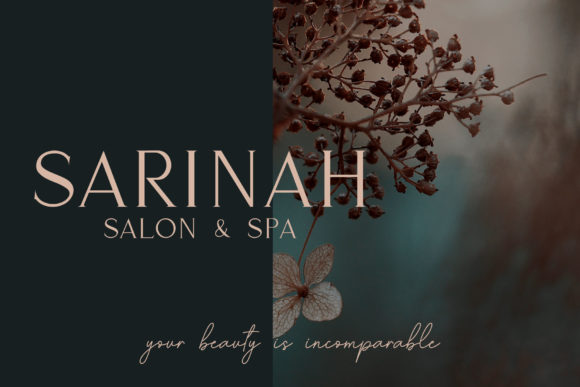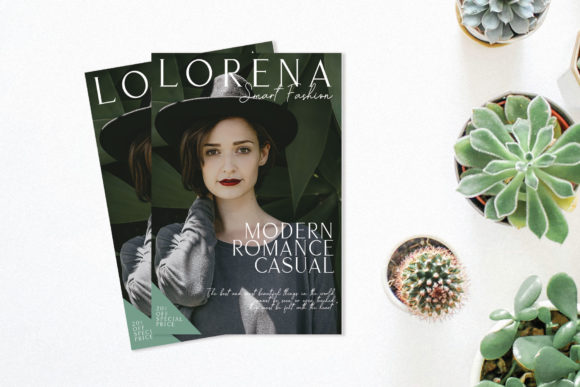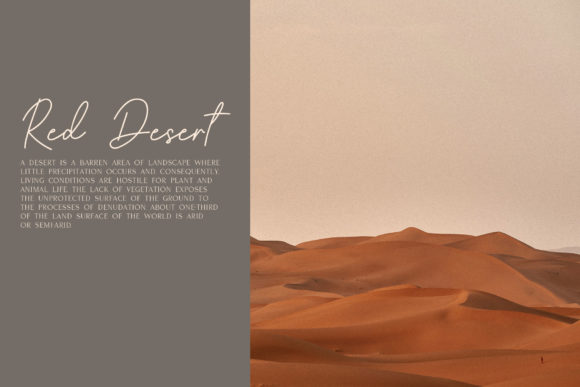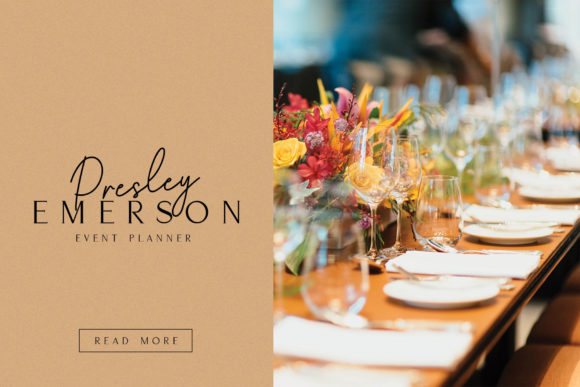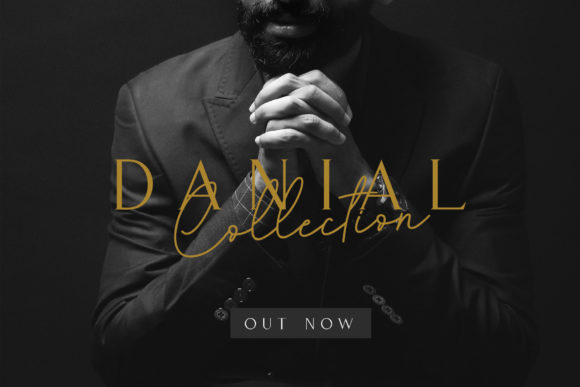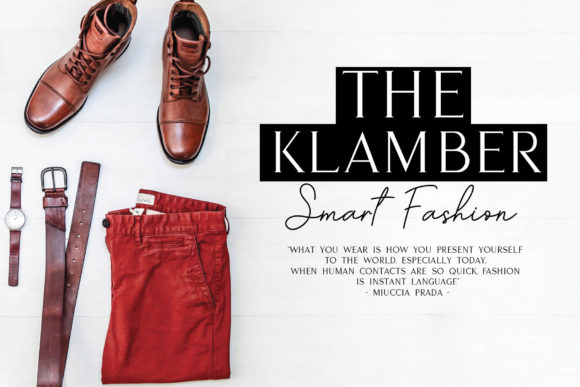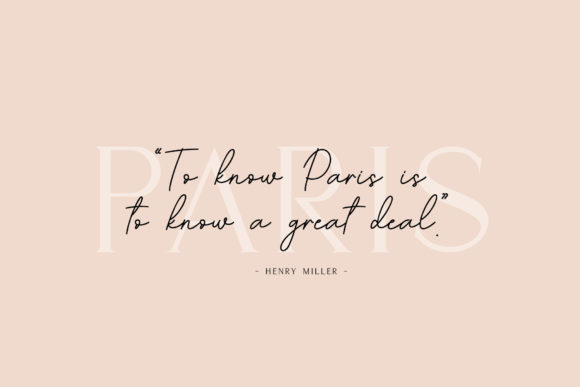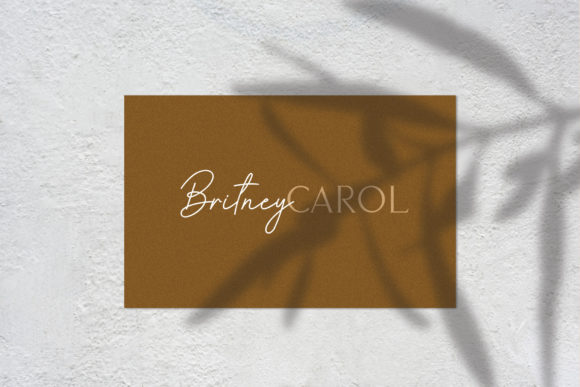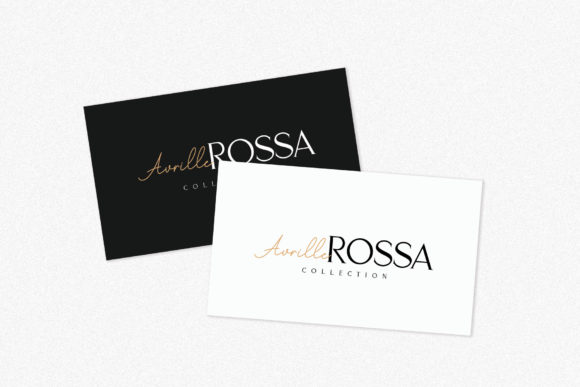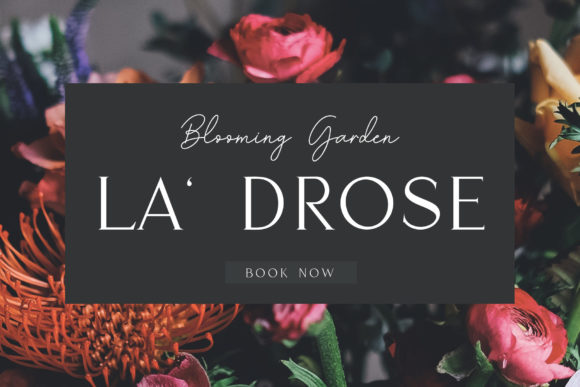
Klamber Satisfaction Font
About Klamber Satisfaction Font
Klamber Satisfaction is an elegant font duo. With a casual style, both fonts look amazing separately and combined.